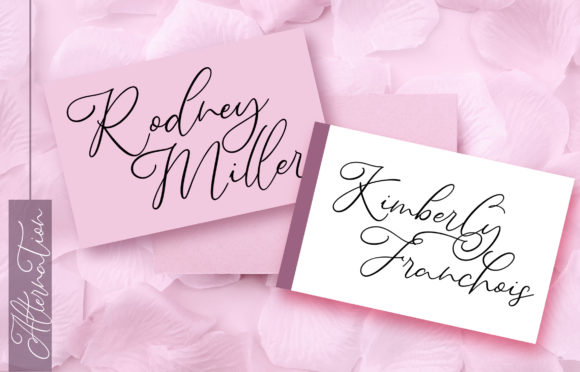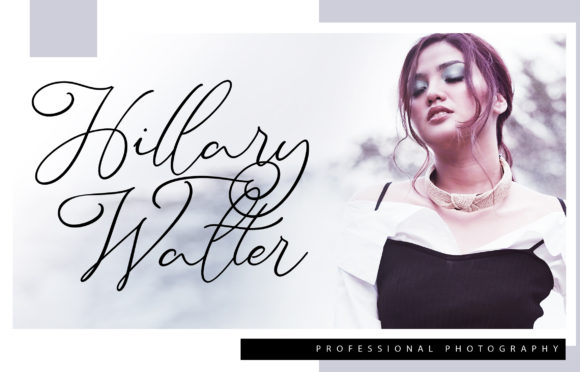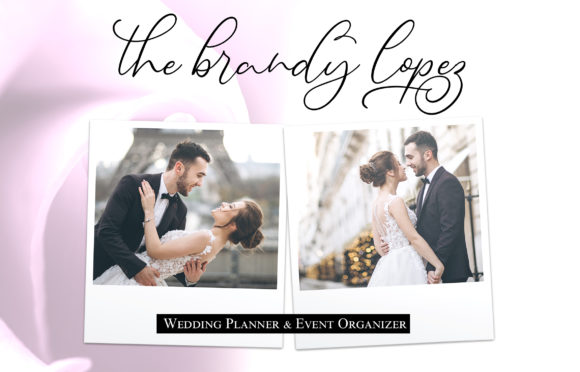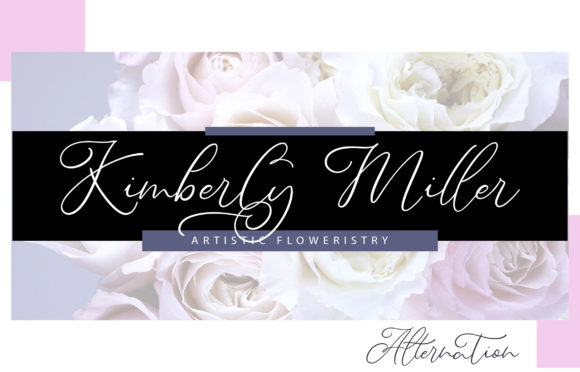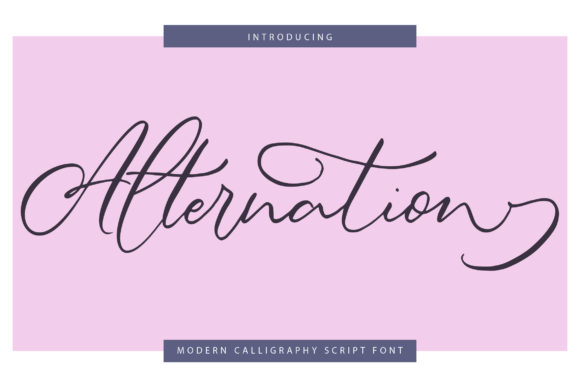
Introducing Alternation Font: Elevate Your Designs with Elegance and Versatility
In the world of typography, a font can make or break a design. For those seeking a blend of classic elegance and modern flair, Alternation Font is a game-changer. This outstanding handwritten font simplifies sophistication into a versatile and fresh typeface that can elevate a wide range of creative projects.
Unpacking Alternation Font
Alternation Font boasts a classy calligraphic influence, reminiscent of traditional handwritten scripts, yet it feels contemporary and forward-thinking. This unique blend of old and new makes it an ideal choice for designers and crafters looking to add a touch of sophistication to their work. Whether you’re designing letterheads, titles, or stationery, Alternation Font offers the perfect combination of elegance and versatility.
Key Features of Alternation Font
- PUA Encoding: Alternation Font is PUA (Private Use Area) encoded, which means you can easily access all the adorable glyphs and swashes. This feature makes it simple to incorporate decorative elements into your designs, giving them a personalized touch.
- Alternate Glyphs and Ligatures: The font comes with a wealth of special features, including alternate glyphs and ligatures. These elements allow you to add variety and creativity to your designs, making them stand out from the crowd.
- Handwritten Elegance: Alternation Font maintains a high level of elegance, making it suitable for projects that require a sophisticated look. Its calligraphic roots are evident, yet it doesn’t feel overly traditional or restrictive.
- Versatility: One of the key advantages of Alternation Font is its versatility. It can be used across a range of applications, from formal letterheads to more creative stationery designs. This adaptability makes it a valuable addition to any designer’s toolkit.
Applications of Alternation Font
- Letterheads and Business Correspondence: Add a touch of elegance to your professional communications with Alternation Font. Its classy appearance makes it perfect for formal letters, invoices, and business cards.
- Titles and Headings: Use Alternation Font to create eye-catching titles and headings for your blog posts, articles, or marketing materials. Its unique blend of classic and modern elements will help your content stand out.
- Stationery and Invitations: Whether you’re designing wedding invitations, greeting cards, or personal stationery, Alternation Font offers a beautiful way to add a personal touch. Its elegant appearance and variety of glyphs and swashes make it ideal for crafting memorable invitations and correspondence.
- Elegance and Versatility: It combines the best of both worlds, offering a sophisticated look that’s also adaptable to various design needs.
- Support for Creative Projects: Whether you’re a professional designer or a DIY crafter, Alternation Font provides the tools you need to bring your creative visions to life.
Alternation Font is more than just a typeface; it’s a design solution that brings elegance, versatility, and creativity to the table. Its unique blend of calligraphic influences and modern flair, combined with features like PUA encoding, alternate glyphs, and ligatures, make it an invaluable resource for designers and crafters alike. Whether you’re looking to elevate your professional communications, add a personal touch to your stationery, or simply explore new creative avenues, Alternation Font is an excellent choice. Discover the difference it can make in your designs today.